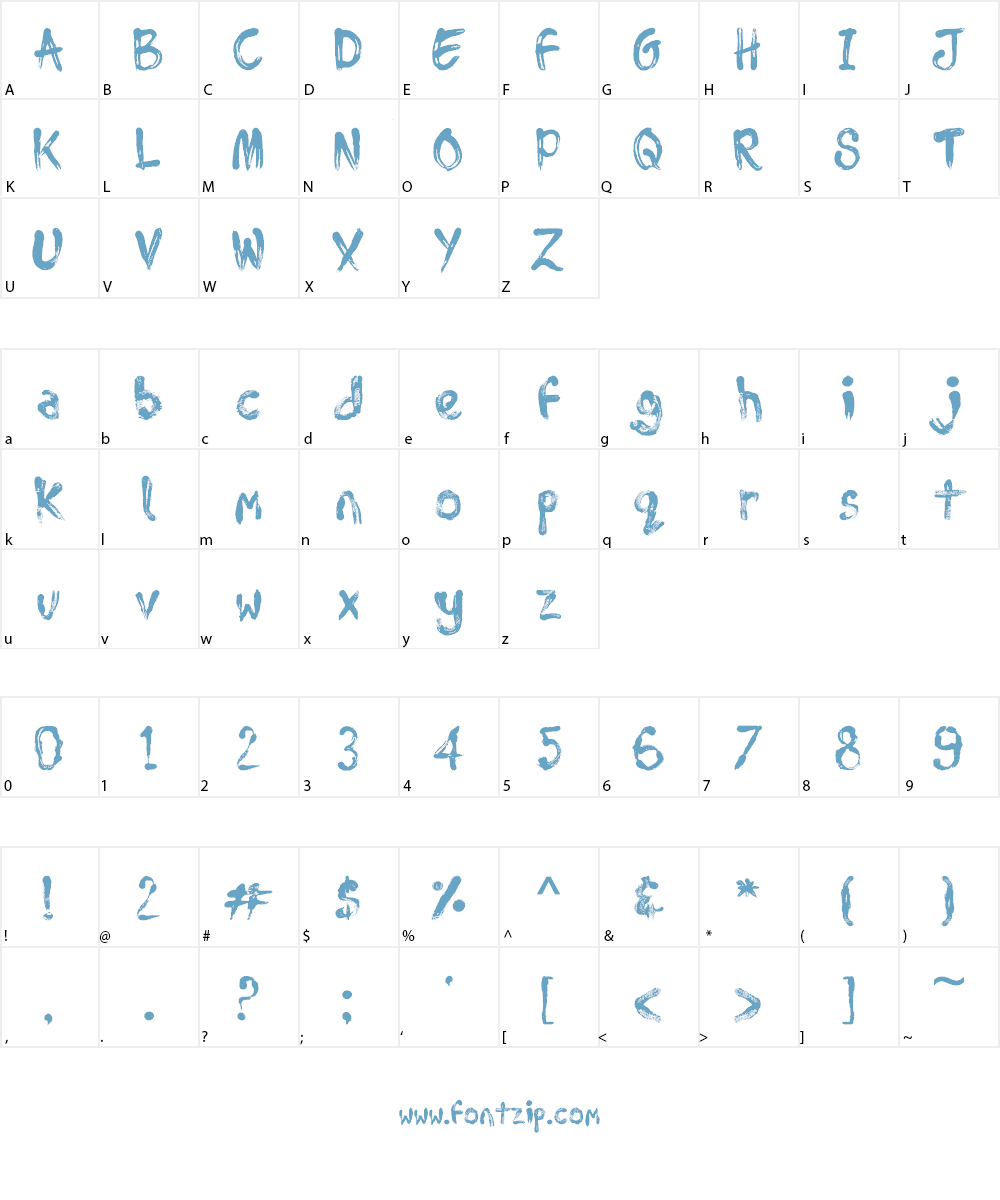
Tajamuka Script is a handwritten font, with hasty form, a protest. It is inspired by the uprising of 2016 in Zimbabwe where a seemingly docile people decided to stand up to a repressive regime. Tajamuka can be loosely translated to ‘Enough is Enough!’